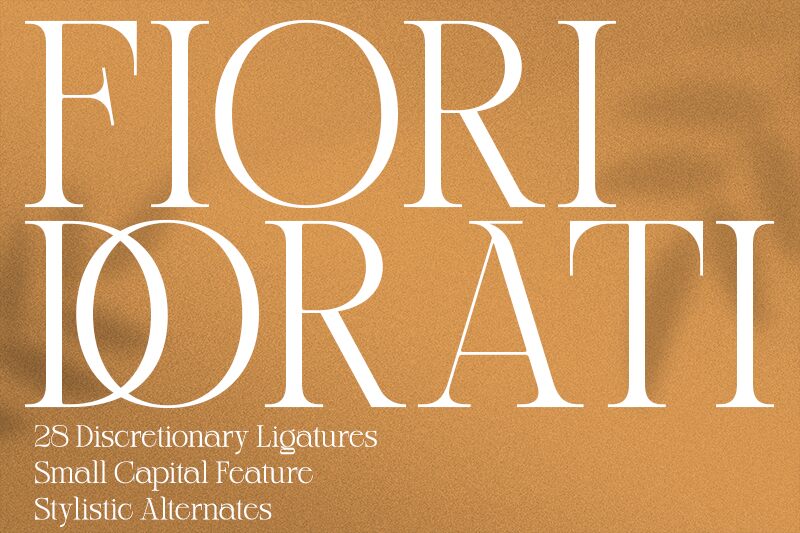
Fiori Dorati, a captivating serif font created by Sign Studio, exudes elegance and sophistication. Its semi-light weight adds a touch of delicacy, making it ideal for projects that demand a refined aesthetic. Perfect for wedding invitations and stationery, this font type beautifully complements romantic designs. Fiori Dorati also shines in editorial layouts, lending an air of professionalism to magazines and books. With its graceful curves and timeless appeal, this serif font effortlessly elevates branding materials such as logos and business cards. Let Fiori Dorati elevate your design projects with its exquisite charm.
Fiori Dorati
Fiori Dorati Font Family by Sign Studio
Sign Studio